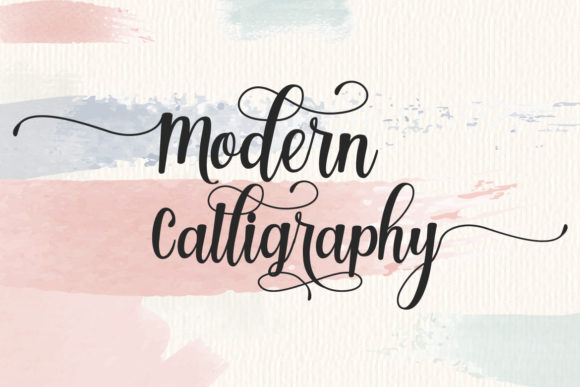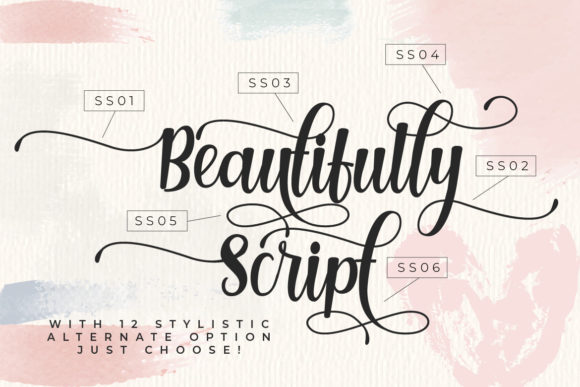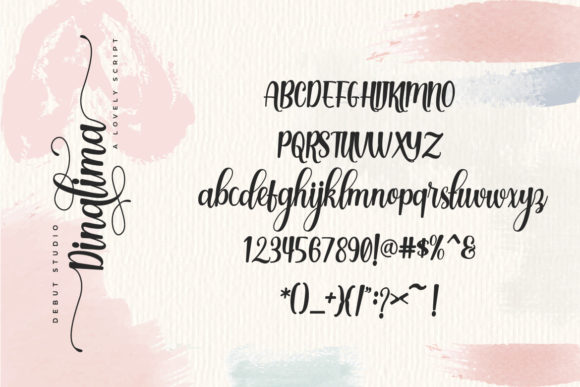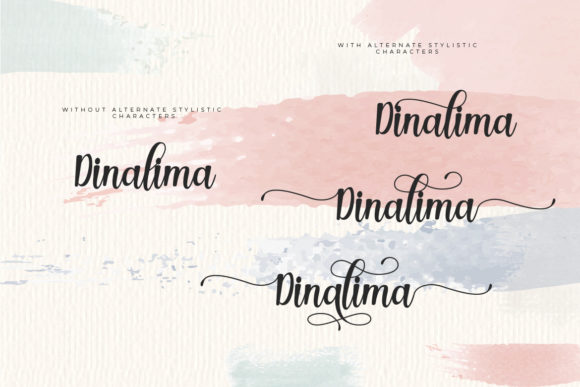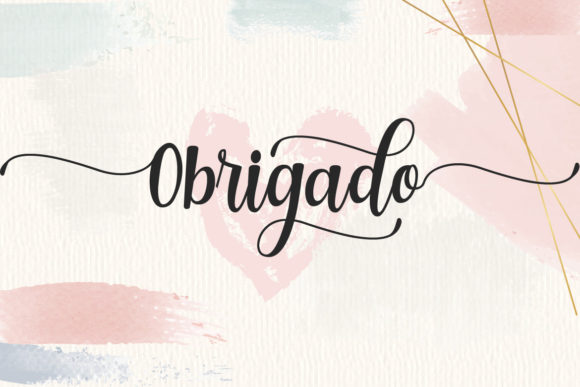
Dinalima Font: Elevate Your Designs with this Beautiful Handwritten Script
Are you looking for a font that can add a touch of elegance and sophistication to your designs? Look no further than Dinalima Font. This stunning handwritten font is perfect for designers and crafters who want to create beautiful and unique visual content. With its amazing swashes and alternates, Dinalima Font is sure to take your designs to the next level.
What is Dinalima Font?
Dinalima Font is a beautiful handwritten font that is designed to add a personal touch to your designs. Its elegant and flowing script makes it perfect for a variety of design projects, from quotes and wedding invitations to stationery and more. The font is carefully crafted to ensure that it is both readable and visually appealing, making it a great choice for designers who want to create professional-looking designs.
Features of Dinalima Font
So, what makes Dinalima Font so special? Here are just a few of its key features:
• Beautiful Handwritten Script: Dinalima Font has a stunning handwritten script that is both elegant and sophisticated.
• Amazing Swashes and Alternates: The font comes with a range of swashes and alternates that allow you to customize your designs and add a personal touch.
• Highly Readable: Despite its elegant script, Dinalima Font is highly readable, making it perfect for use in a variety of design projects.
• Versatile: Dinalima Font can be used for a wide range of design projects, from quotes and wedding invitations to stationery and more.
Uses for Dinalima Font
So, what can you use Dinalima Font for? The possibilities are endless, but here are a few ideas to get you started:
• Quotes: Use Dinalima Font to create stunning quote graphics that are perfect for social media, blogs, and more.
• Wedding Invitations: Add a touch of elegance to your wedding invitations with Dinalima Font.
• Stationery: Use Dinalima Font to create beautiful stationery, including letterheads, notecards, and more.
• Signage: Dinalima Font is perfect for use in signage, including menus, posters, and more.
Tips for Using Dinalima Font
Here are a few tips for using Dinalima Font in your designs:
• Experiment with Swashes and Alternates: Don’t be afraid to experiment with the font’s swashes and alternates to add a personal touch to your designs.
• Use it with Other Fonts: Dinalima Font pairs well with a range of other fonts, so don’t be afraid to use it in combination with other fonts to create a unique look.
• Pay Attention to Kerning: As with any font, pay attention to kerning to ensure that your text is evenly spaced and visually appealing.
Font Name Dinalima Font
Author Debut Studio
In conclusion, Dinalima Font is a beautiful handwritten font that is perfect for designers and crafters who want to add a touch of elegance and sophistication to their designs. With its amazing swashes and alternates, highly readable script, and versatility, Dinalima Font is sure to take your designs to the next level. So why not give it a try and see the difference it can make?
Whether you’re a professional designer or a crafter looking for a unique font to use in your projects, Dinalima Font is a great choice. Its stunning handwritten script and range of swashes and alternates make it perfect for a wide range of design projects, from quotes and wedding invitations to stationery and more. So why wait? Download Dinalima Font today and start creating beautiful designs that will leave a lasting impression.